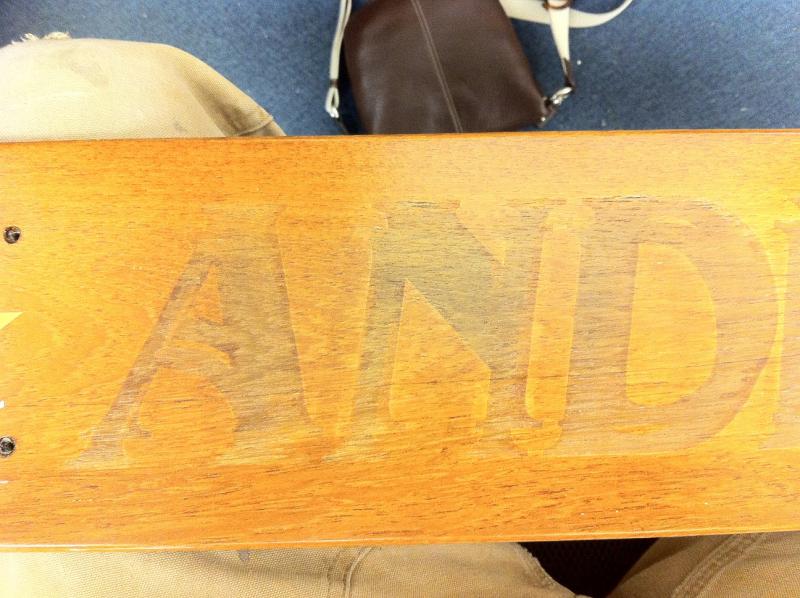
Difficult Font ID
So I have a customer that brought it a piece for me to re letter, unfortunately he pulled the old vinyl off before I could id the font. I was hoping someone could look at this and tell me what it is. The letters have a shadow as well, So it has been difficult to ID. The "A" is pretty distinct looking.